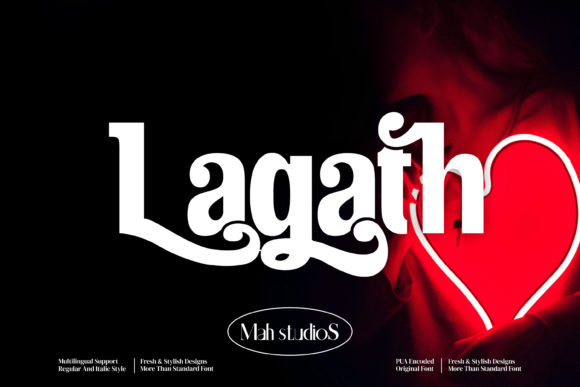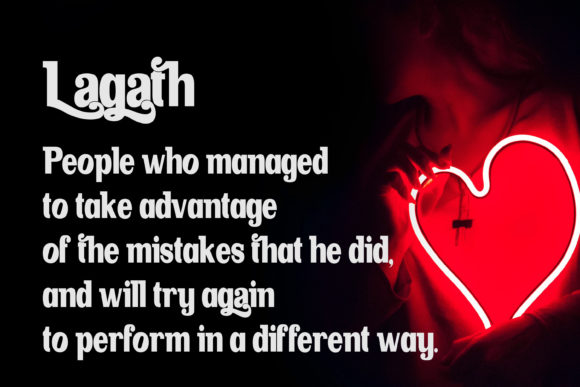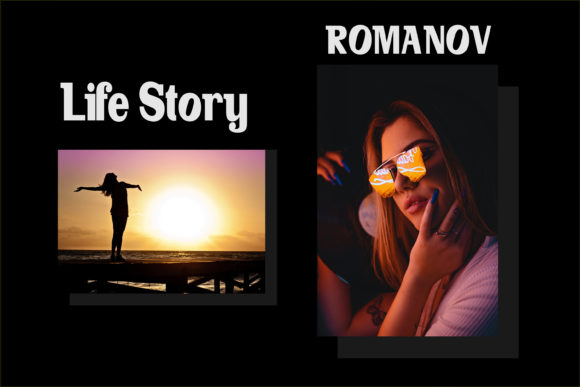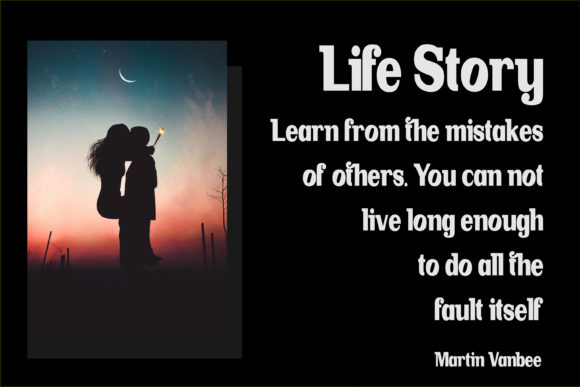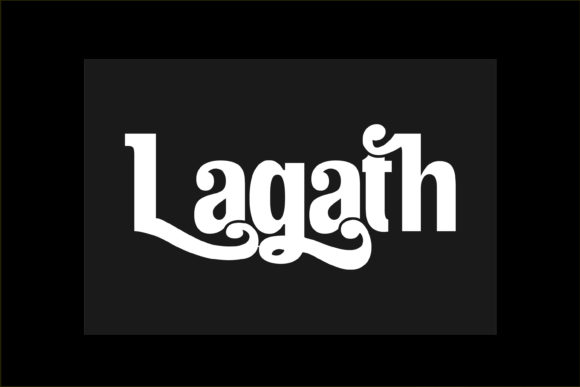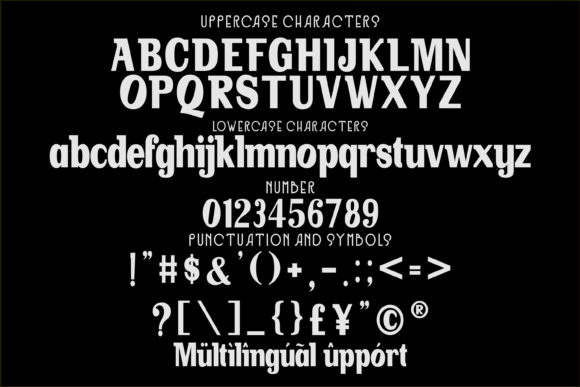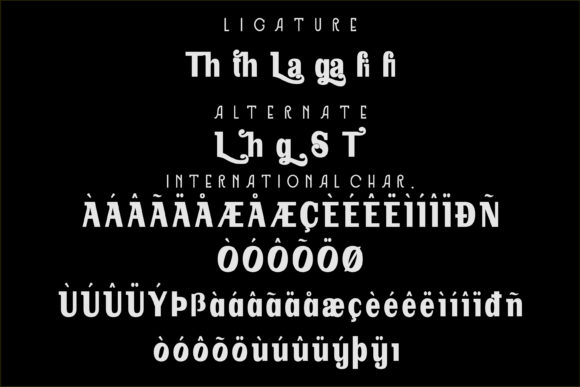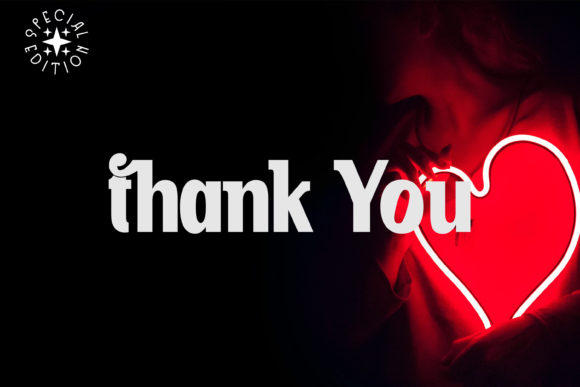
Lagath
Lagath: An Impressive and Versatile Slab Serif Font
Lagath is a distinctive slab serif font that combines impressive design with versatility. This elegant typeface is suitable for a wide range of projects, making it a powerful tool for designers seeking to add a premium signature taste to their creations.
Key Features of Lagath
• Impressive Design: Features striking letterforms that command attention and elevate designs.
• Slab Serif Structure: Incorporates the characteristic thick, rectangular serifs typical of slab serif fonts.
• Versatile Application: Suitable for a wide range of projects, from branding to product design.
• Premium Aesthetic: Offers a luxurious look that enhances the visual appeal of any project.
• Adaptable Style: Flexible enough to suit various design contexts and themes.
Ideal Uses for Lagath
Lagath’s unique characteristics make it particularly well-suited for:
• Logos and branding projects
• Homeware designs
• Product packaging
• Mugs and merchandise
• Quotes and posters
• Shopping bags and t-shirts
• Book covers
• Name cards and invitation cards
• Greeting cards and labels
• Photography watermarks
• Special event materials
When incorporating Lagath into your designs, consider the following tips:
• Use for both headlines and short blocks of text to showcase its impressive slab serif style
• Experiment with different sizes to highlight the font’s unique details
• Take advantage of its versatility across various luxury-oriented projects
Lagath is an excellent choice for designers looking to add an impressive and versatile slab serif font to their typographic toolkit. Its ability to enhance various design projects with a premium signature taste makes it stand out in the world of typography. Whether you’re working on logo designs, creating layouts for product packaging, or developing content that requires a touch of luxury, Lagath offers the perfect blend of style and adaptability.
Add Lagath to your font library and explore how it can elevate your designs with its impressive and versatile aesthetic. From elegant branding materials to eye-catching product designs, this font provides the tools to create impactful and memorable typography that resonates with audiences seeking a premium look. It’s versatile enough to be used in various contexts, from vintage-inspired designs with a modern twist to more playful layouts that need a touch of sophistication.
Whether you’re creating a magical and mysterious atmosphere or aiming for a more thoughtful and introspective mood in your designs, Lagath can adapt to your needs. Its flexibility allows it to work well in both luxury-oriented projects and themed designs that require a premium touch. For those looking to add a touch of elegance to their work, this font can even complement vintage-inspired creations with a unique, luxurious twist.